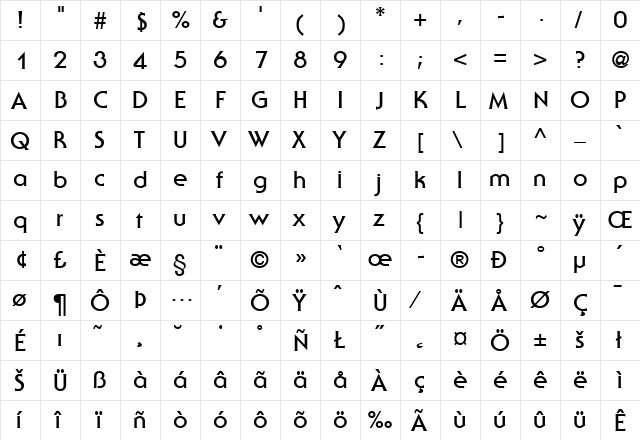
SerifGothic-Bold Regular Font Preview
SerifGothic-Bold Regular
Design Context for SerifGothic-Bold Typeface
SerifGothic-Bold carries the refined structure of traditional serif typography, with bracketed terminals and considered proportions that communicate credibility and craft. The heavy weight commands attention and anchors typographic hierarchies.